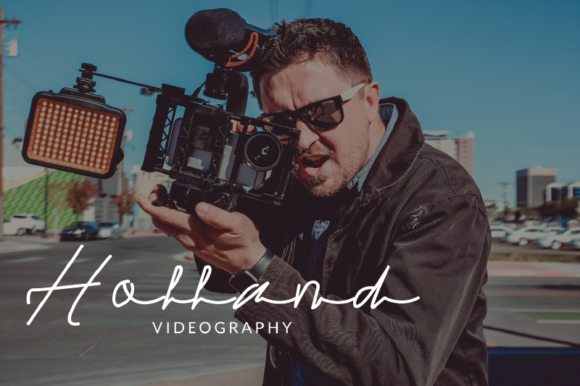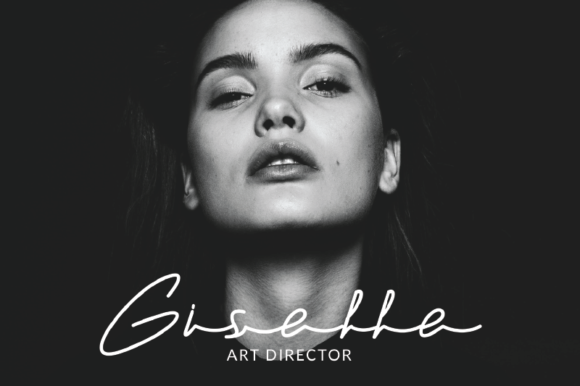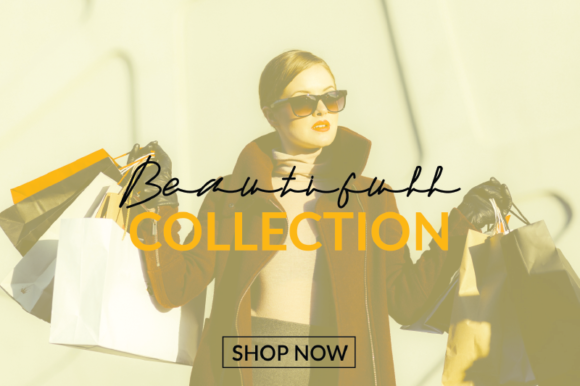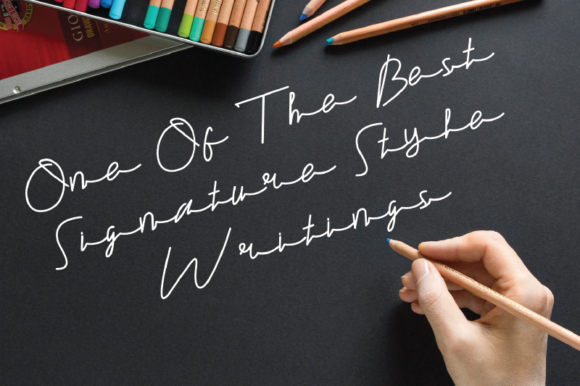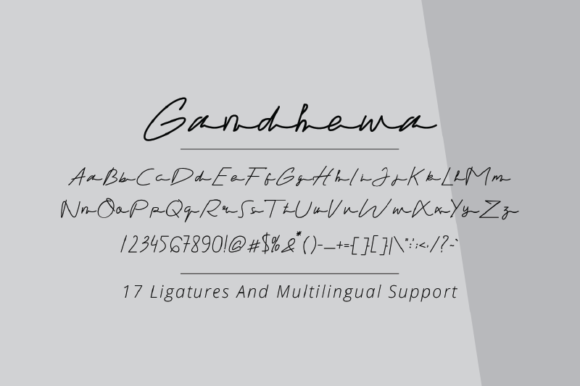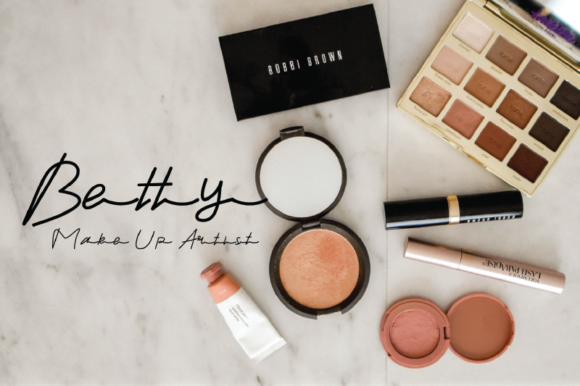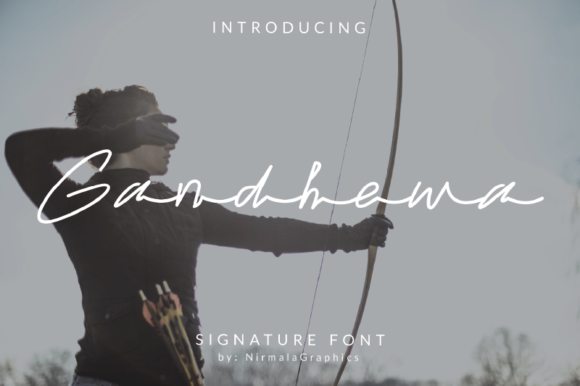
Gandhewa Font: A Handwritten Masterpiece for Designers and Crafters
In the world of typography, fonts play a crucial role in conveying the tone and personality of a brand or design. For designers and crafters, finding the perfect font can be a daunting task. However, if you’re looking for a font that exudes a natural, clean signature style, look no further than the Gandhewa Font.
The Origin of Gandhewa Font
Gandhewa Font was born from rough sketches on paper, using a ballpoint pen. This unique approach gives the font its distinctive, handcrafted feel. The creator of Gandhewa drew inspiration from actual handwriting, meticulously crafting each letter to deliver a sense of authenticity and personality. The result is a font that feels both natural and refined.
Key Features of Gandhewa Font
So, what makes Gandhewa Font stand out from the crowd? Here are some of its key features:
- Natural, Clean Signature Style: Gandhewa Font boasts a beautiful, handwritten aesthetic that’s perfect for designs that require a personal touch.
- 17 Ligatures: To add an extra layer of authenticity, Gandhewa comes equipped with 17 ligatures. These special character combinations allow you to create a more fluid, connected script that mimics real handwriting.
- Multilingual Support: Whether you’re working on a project that requires English, Spanish, French, or any other language, Gandhewa Font has got you covered. Its multilingual support ensures that you can create stunning designs for a global audience.
Why Designers and Crafters Love Gandhewa Font
Gandhewa Font has quickly become a favorite among designers and crafters, and for good reason. Here are just a few reasons why:
- Versatility: Whether you’re working on a logo, branding project, or craft design, Gandhewa Font adapts seamlessly to any style or theme.
- Ease of Use: With its clean lines and clear letterforms, Gandhewa Font is incredibly easy to read and work with, even at smaller sizes.
- Unique Personality: In a world of generic fonts, Gandhewa stands out for its distinctive character and charm. It adds a touch of warmth and personality to any design.
Using Gandhewa Font in Your Designs
So, how can you incorporate Gandhewa Font into your designs? Here are a few ideas to get you started:
- Logos and Branding: Use Gandhewa Font to create a unique, handcrafted logo that sets your brand apart.
- Stationery and Invitations: Add a touch of elegance and sophistication to your stationery, invitations, and greeting cards.
- Crafting and Scrapbooking: Gandhewa Font is perfect for crafters and scrapbookers looking to add a personal touch to their projects.